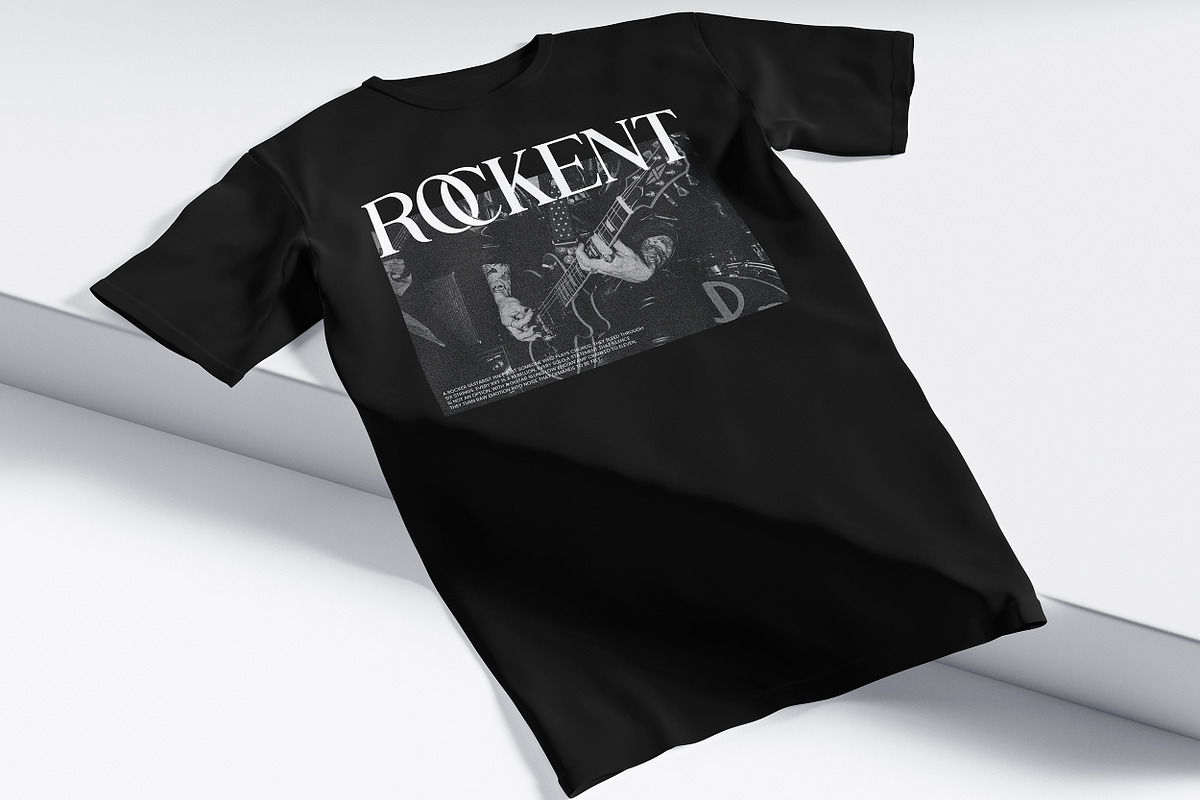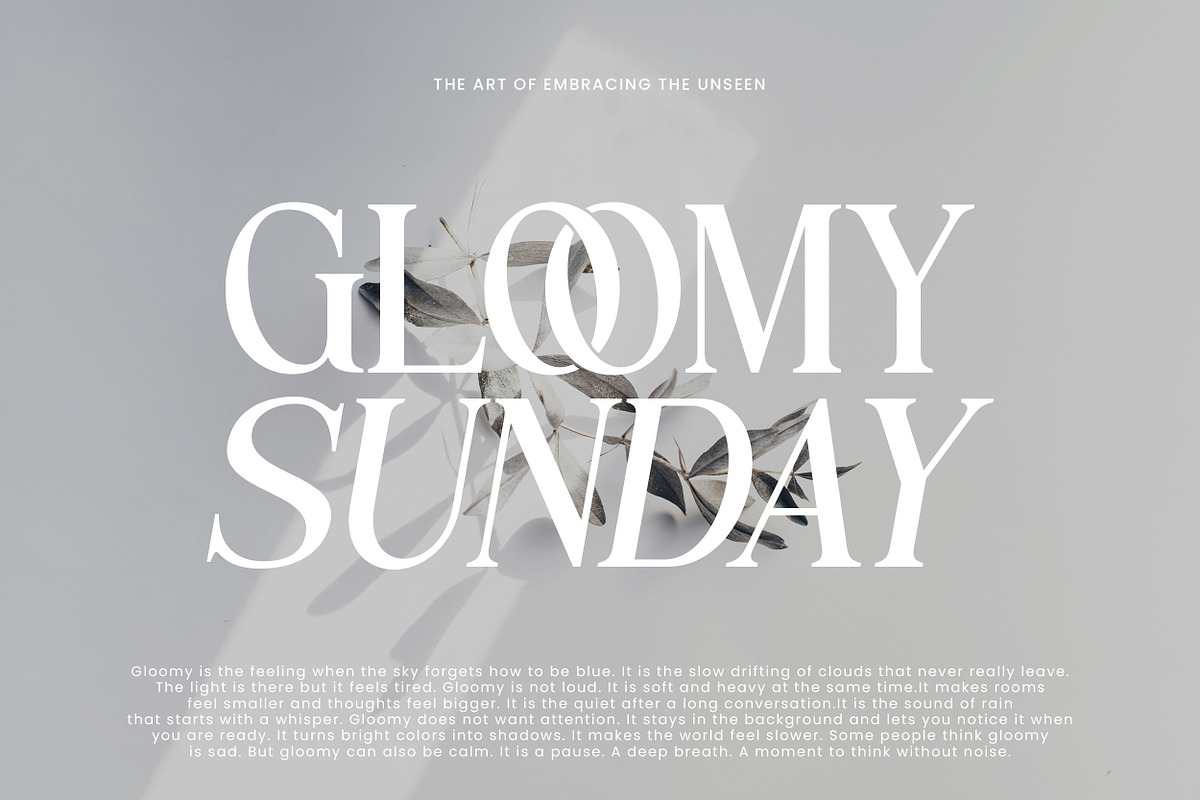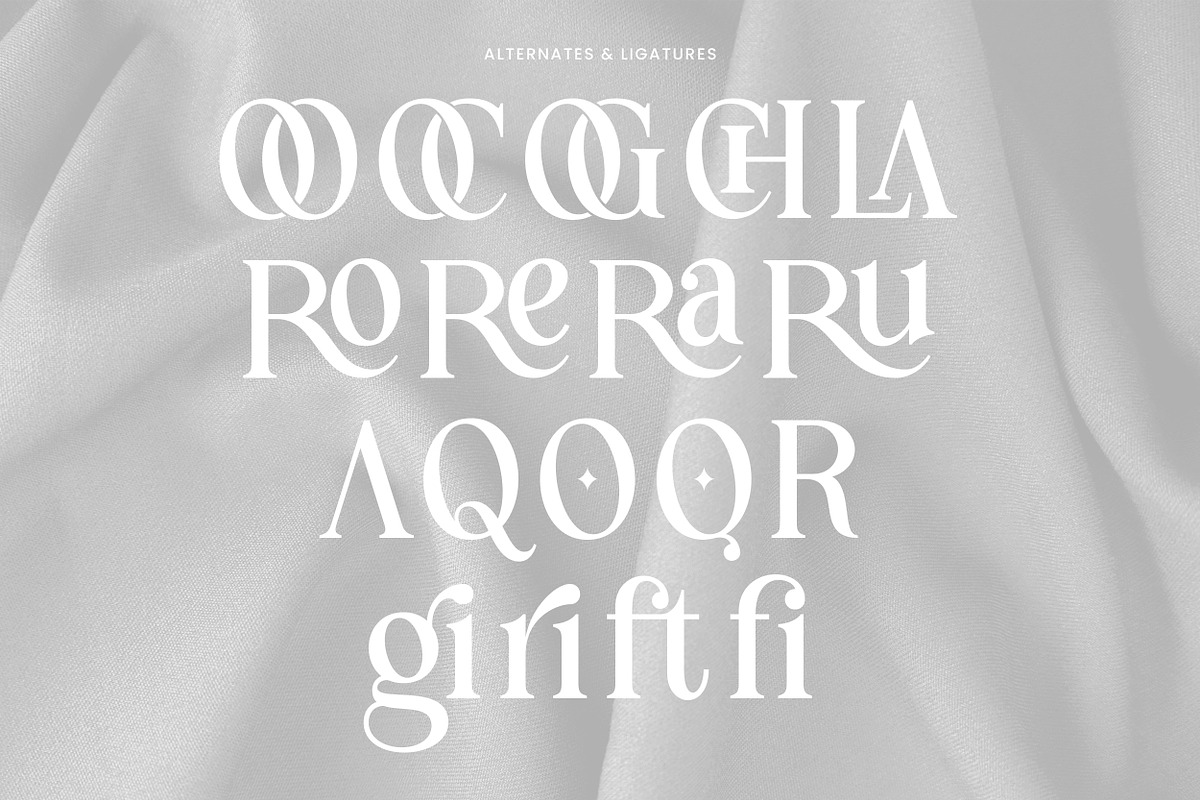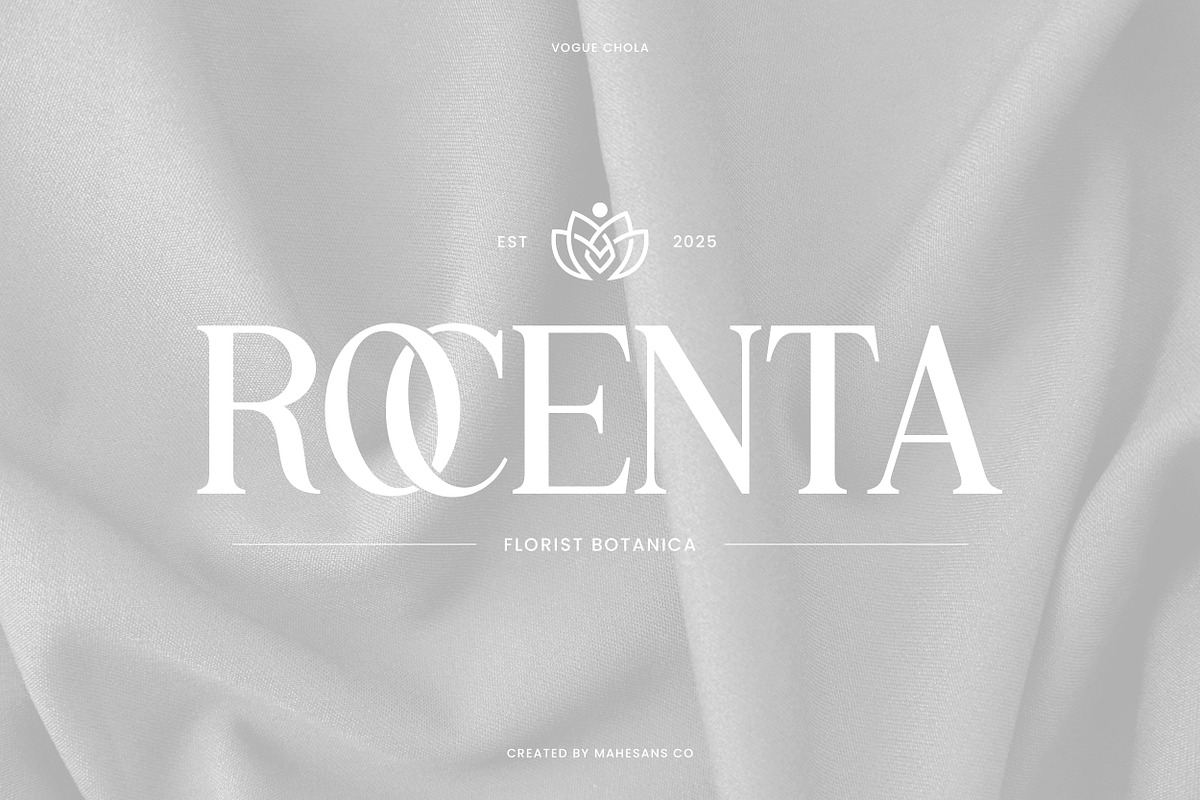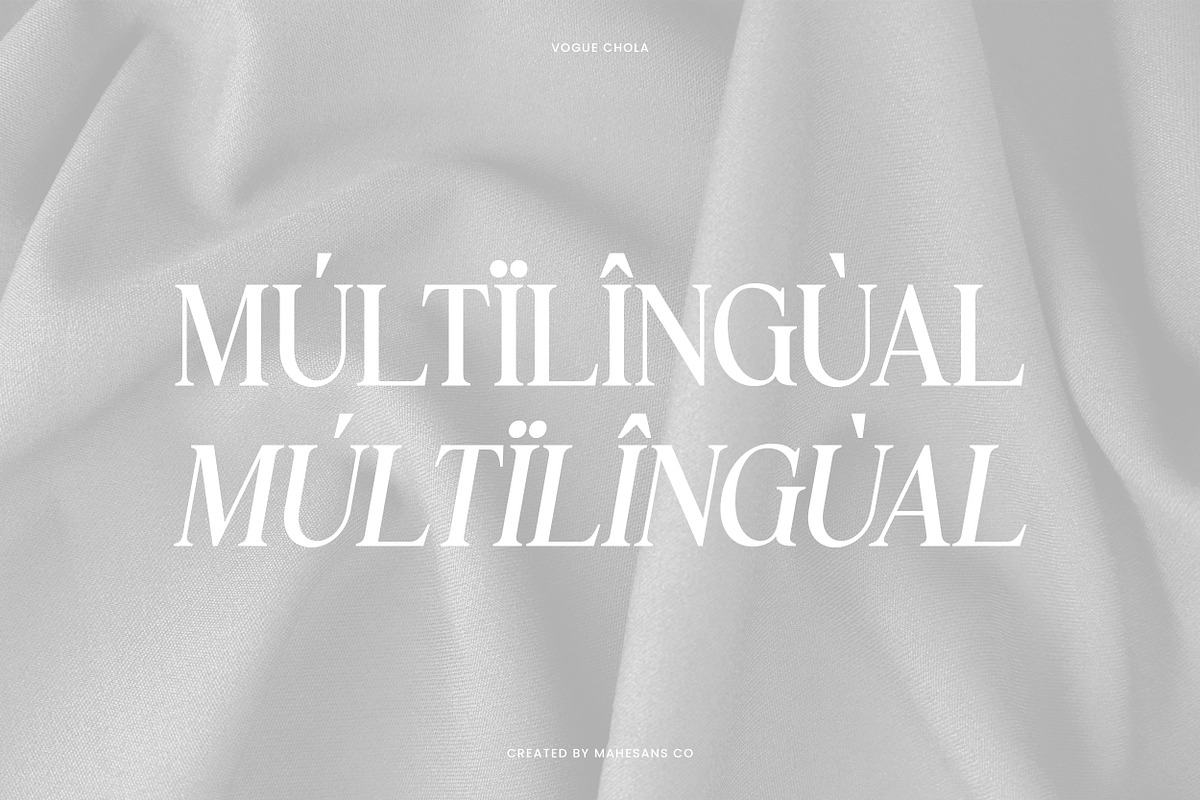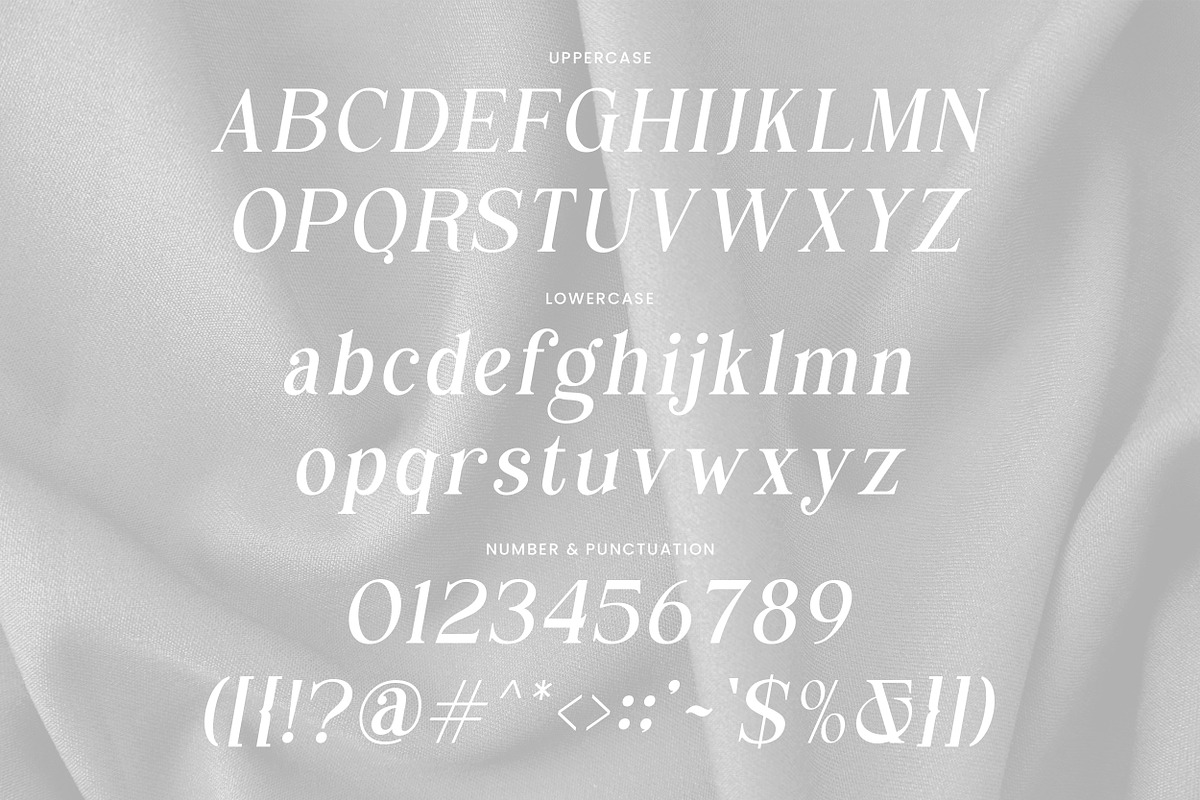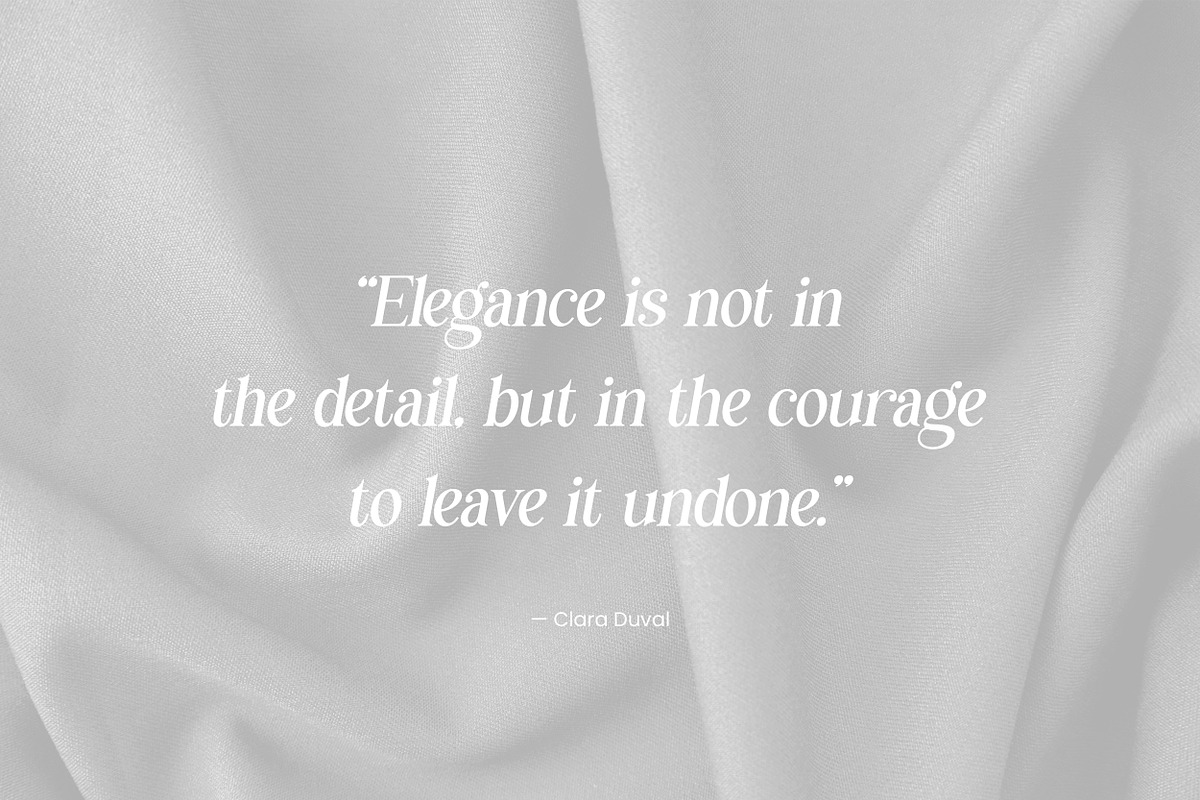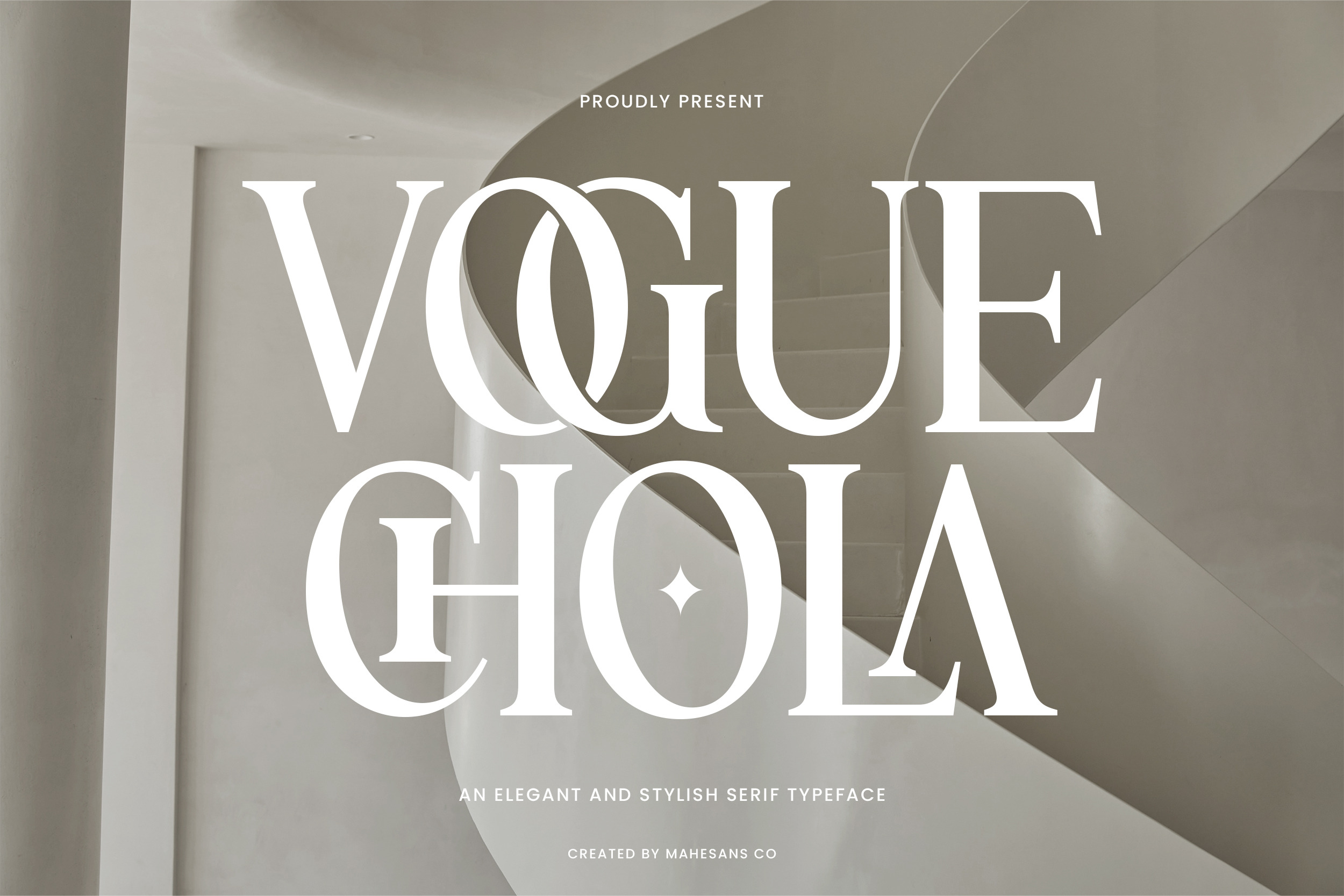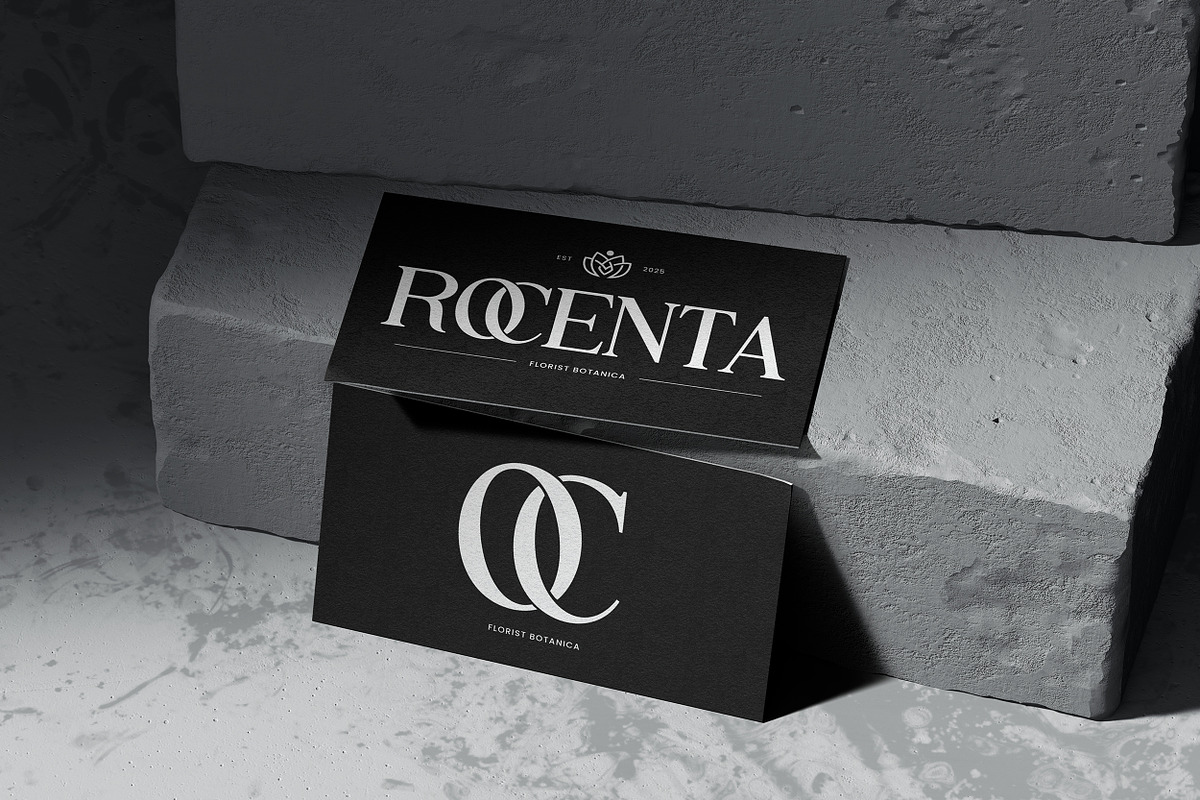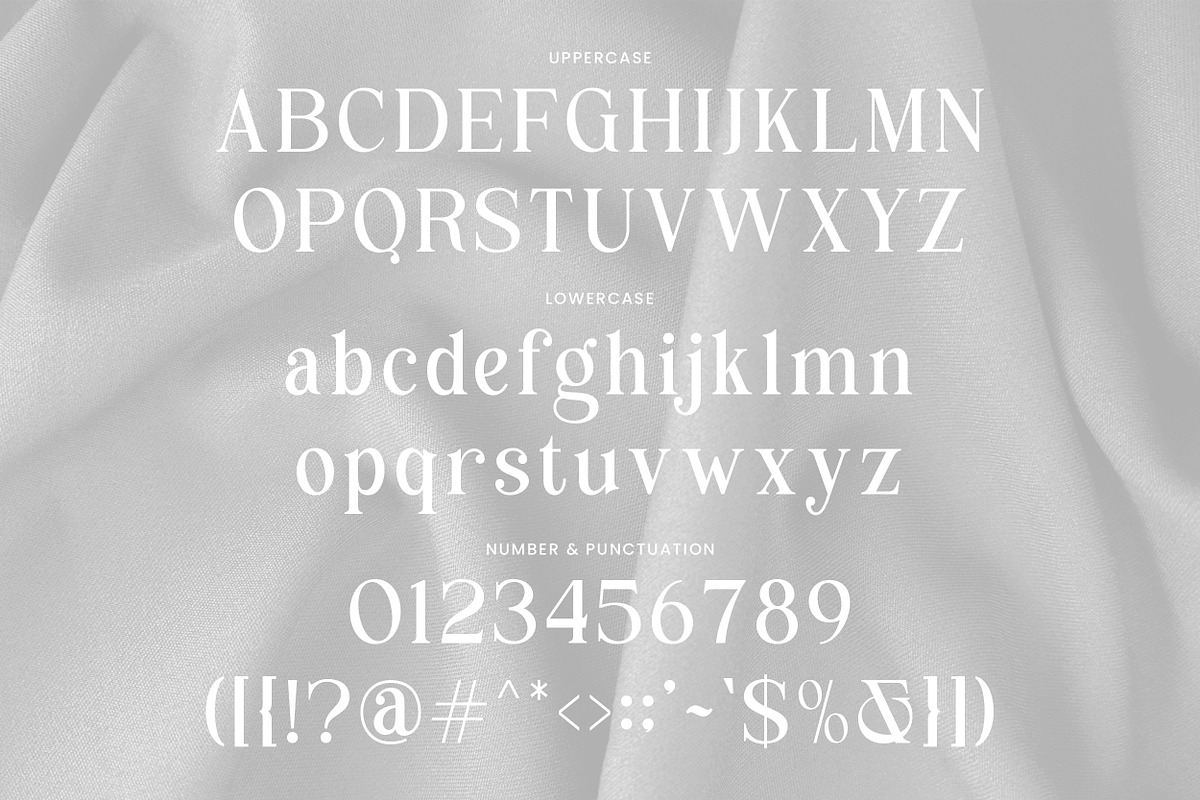
Vogue Chola | Stylish Serif Font
Vogue Chola — Elegant Serif Typeface
A classy serif typeface that blends timeless elegance with a bold modern touch. Designed in 2 versatile styles (Regular & Italic), Vogue Chola is crafted to bring high-fashion vibes into any design project. With a subtle set of alternates and ligatures, Vogue Chola allows you to create beautifully unique typography — perfect for branding, magazine headlines, logos, social media posts, packaging, and more.
- Two Styles
- Numberial & Punctuation
- Multilanguage